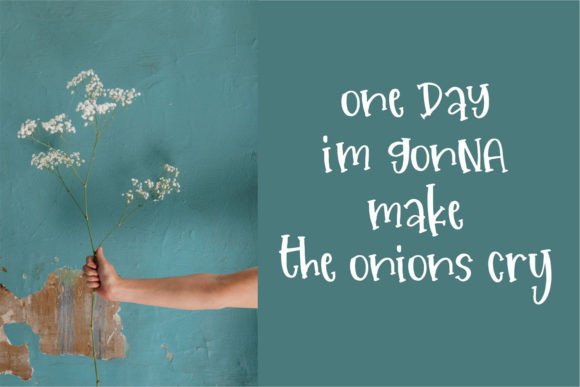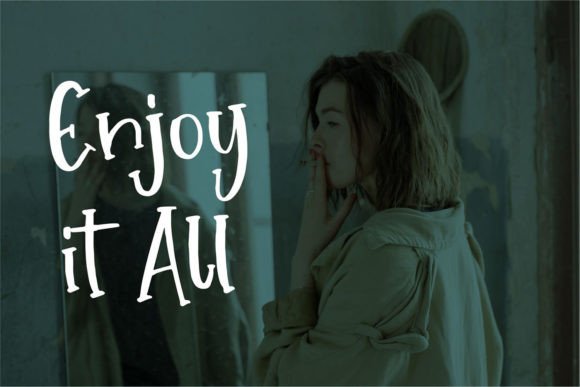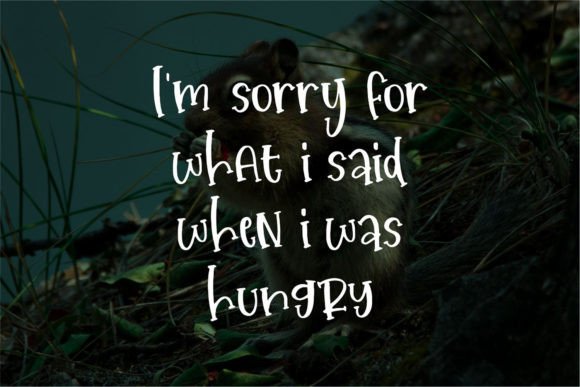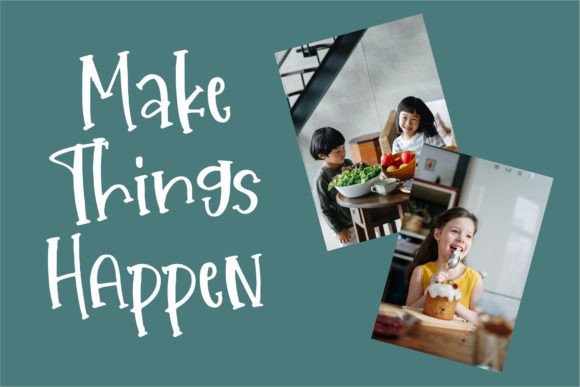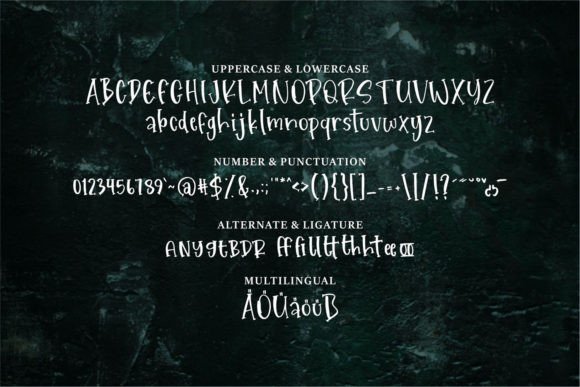
Introduction to Ronny Font
Ronny is a fun and friendly display font.
Whimsical and a bit quirky, this font will brighten up each of your designs It is also PUA encoded which means you can access all of the glyphs and swashes with ease.